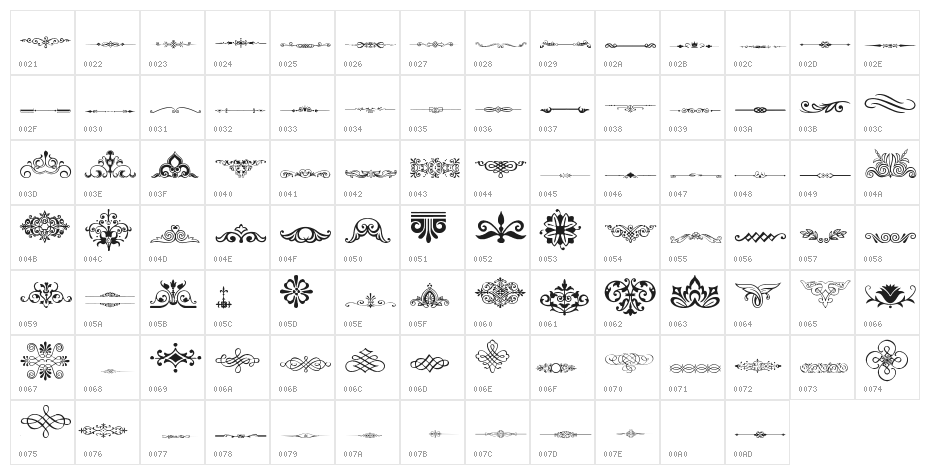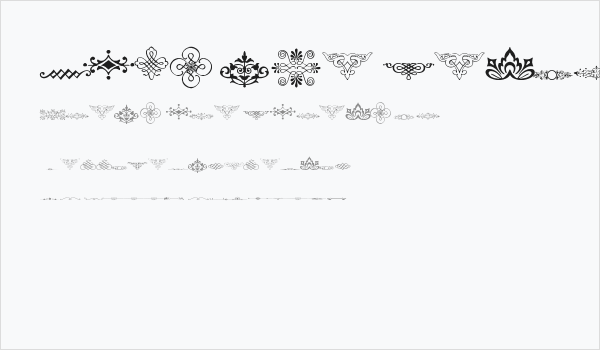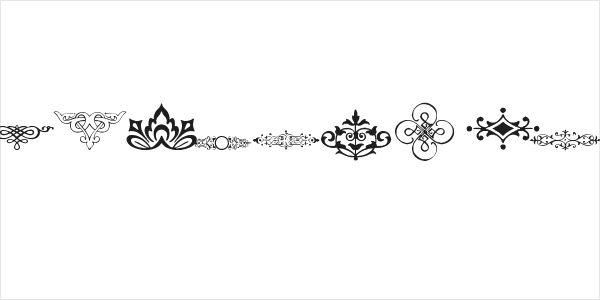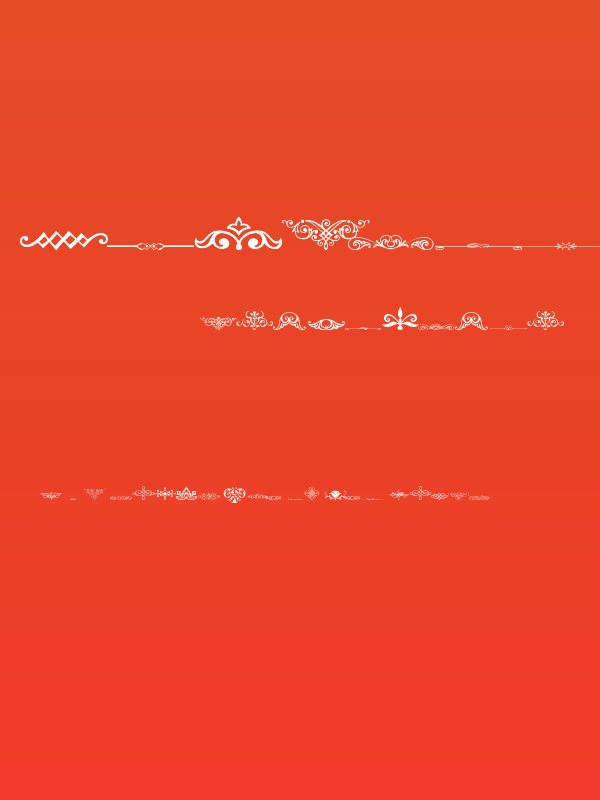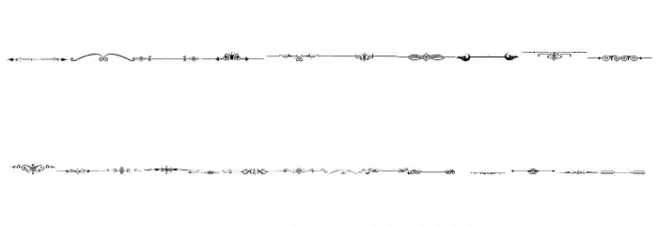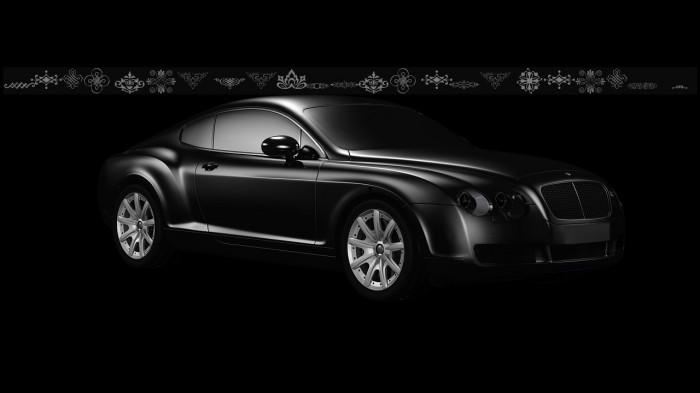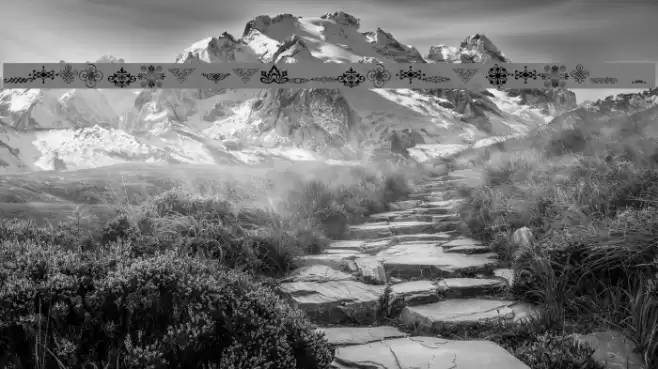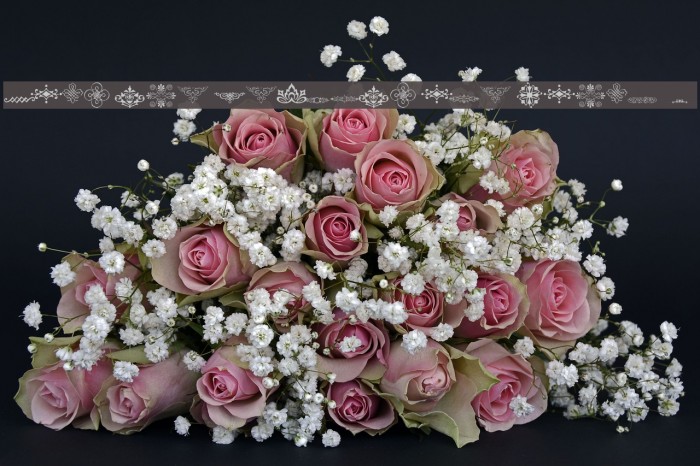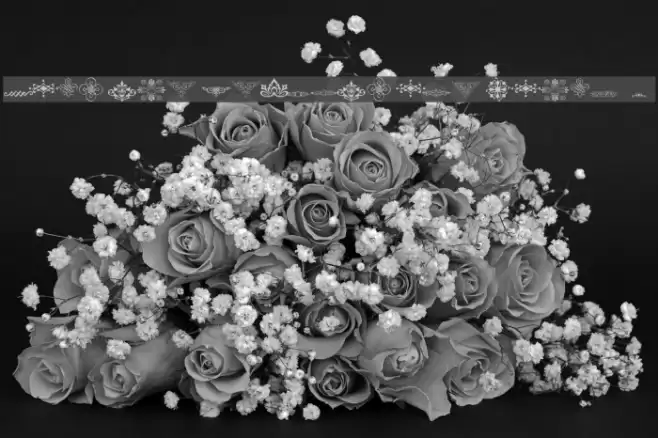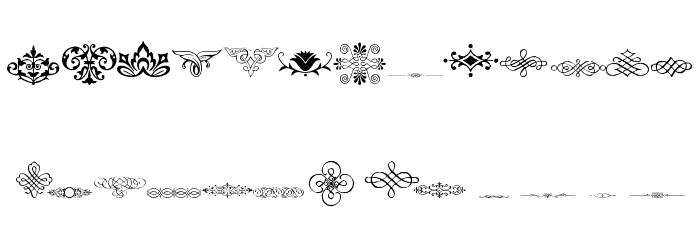
Vintage Decorative Signs 3 Font
Vintage Decorative Signs 3 Description
A collection of highly ornate, vintage-inspired decorative elements and borders featuring intricate swirls, flourishes, and symmetrical motifs. The designs are detailed and evoke a classic, antique aesthetic, suitable for embellishing invitations, certificates, or signage.
| Overall Style | Vintage, Decorative, Ornate |
| Use Case | Borders, Dividers, Decorative accents |